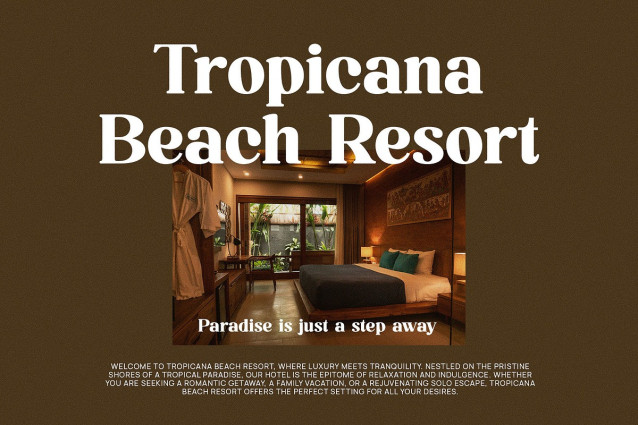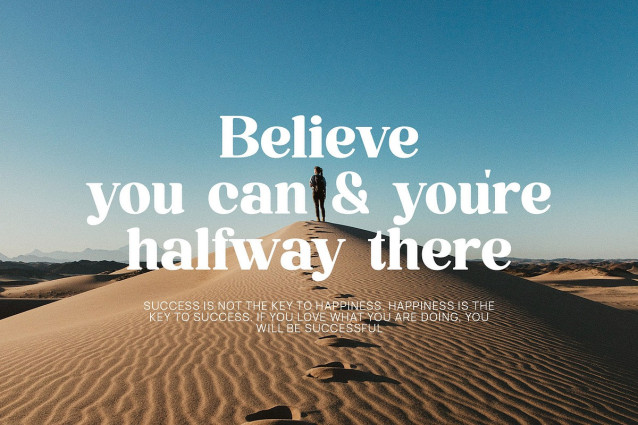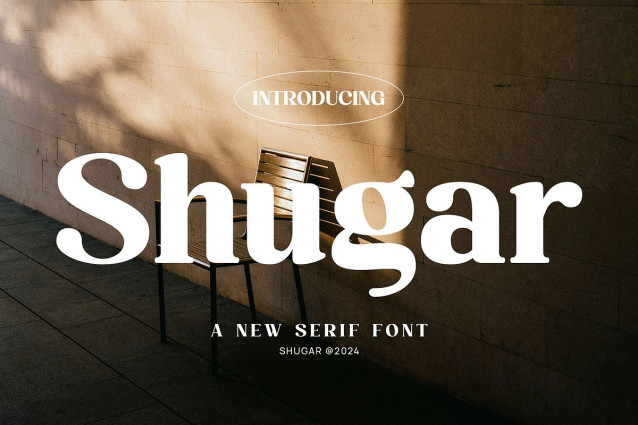
Shugar Font
Shugar Font, modern serif font with elegant style this is perfect for branding, logos, invitation, magazines, product packaging and more.